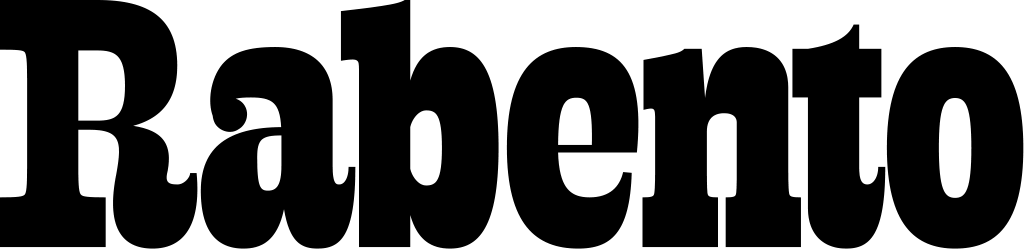
Rabento Font
Rabento font has a friendly and Western theme that can be used to design flyer posters and restaurant menus in Mexico. This cowboy font does not include numbers, and you can only use the letters to show your creativity and motivation for the Wild West.
In addition, you can use this serif font on T-shirts, hats, and cowboy shoes to showcase your fantastic project with two different types.